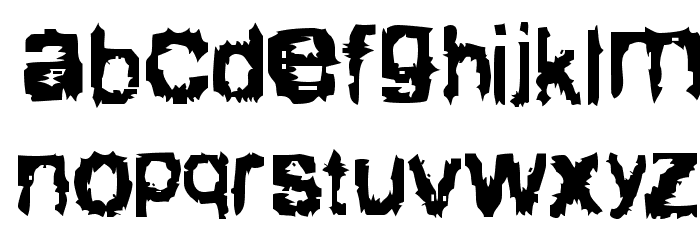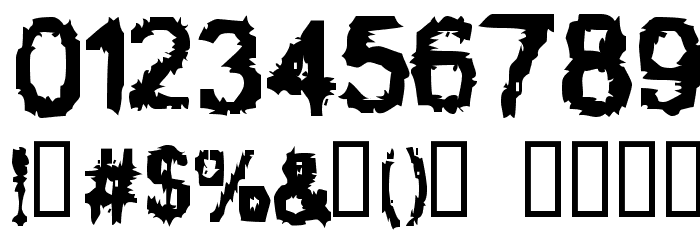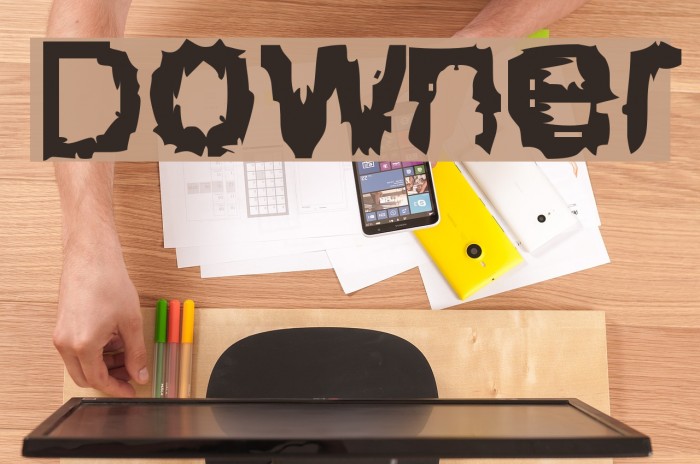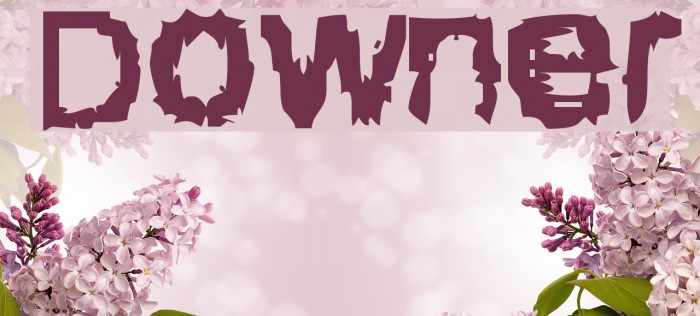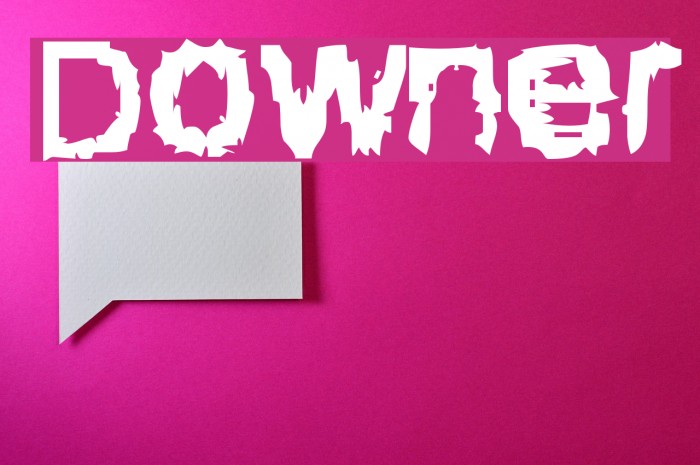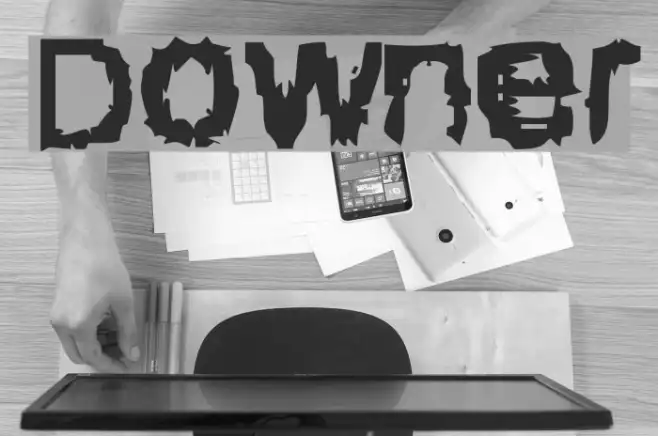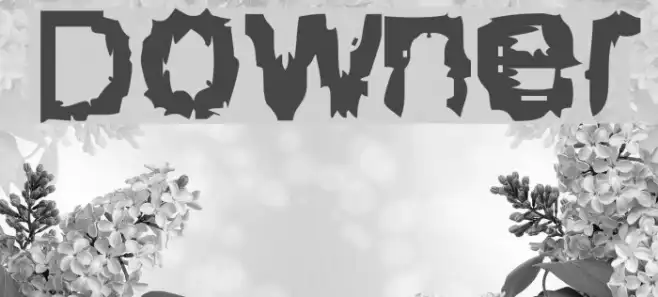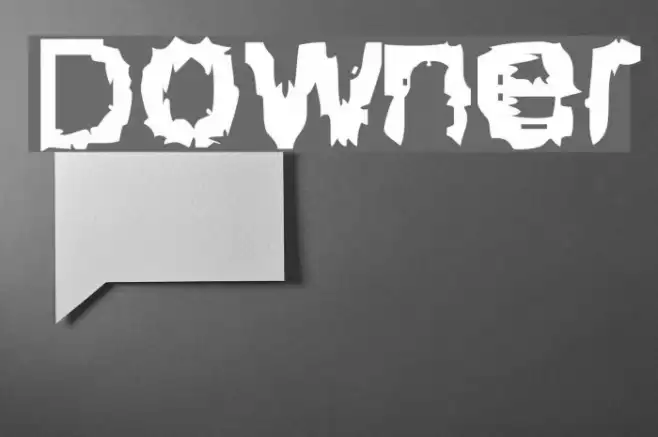
Downer Font
This font features a highly distinctive and edgy design, characterized by jagged, irregular edges that give it a chaotic and dynamic appearance. The uppercase and lowercase letters maintain a consistent style, with each character appearing as though it has been torn or shredded. The numbers and special characters follow the same aesthetic, ensuring a cohesive look across all elements. This font's unique style makes it stand out, offering a bold and unconventional choice for creative projects.
A jagged, edgy font with a chaotic and dynamic appearance.
- Proposed Projects: Ideal for music album covers, horror movie posters, edgy branding, and any project requiring a bold, unconventional typeface.